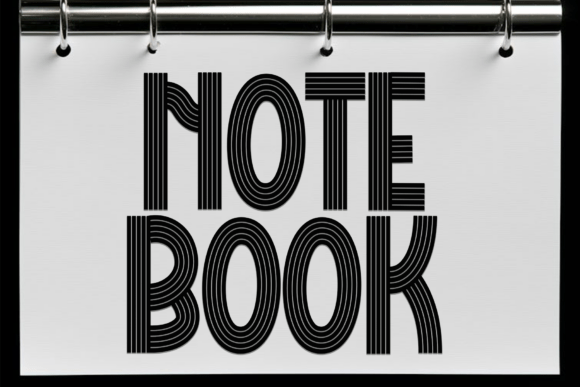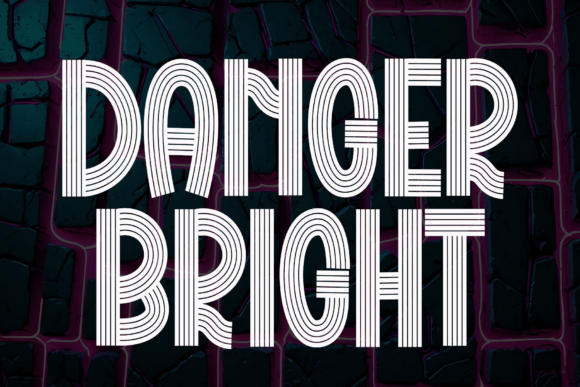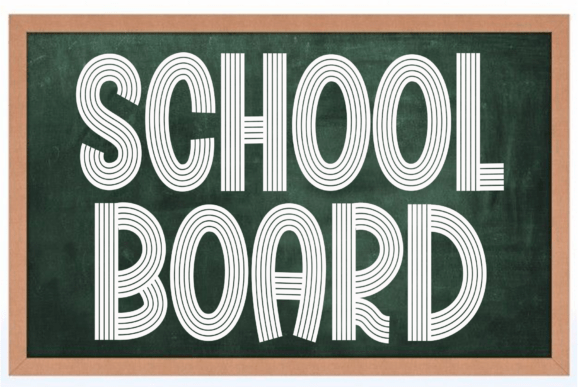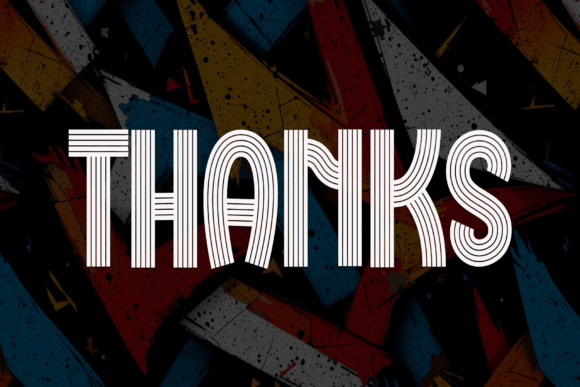
Fried Chicken Font: The Crispy Addition to Your Design Projects
Are you tired of using the same old fonts in your design projects? Do you want to add a dash of personality and whimsy to your creations? Look no further than the Fried Chicken Font! This cool and unique display font is sure to bring a smile to your audience’s faces and set your designs apart from the crowd.
The Inspiration Behind Fried Chicken Font
The Fried Chicken Font is a one-of-a-kind typeface that is inspired by the playful and casual vibe of fried chicken. Its creator, a talented designer, wanted to capture the essence of this beloved food and turn it into a font that would bring joy and creativity to designers and crafters. And that’s exactly what they’ve achieved!
What Makes Fried Chicken Font So Special?
So, what sets Fried Chicken Font apart from other fonts out there? Here are just a few of its unique features:
- Unique Character Set: Fried Chicken Font boasts a distinctive character set that is both fun and quirky. Each letter is carefully crafted to resemble the playful, hand-drawn style of fried chicken-inspired artwork.
- Display Font: This font is specifically designed as a display font, making it perfect for headlines, titles, and other attention-grabbing elements in your designs.
- Highly Readable: Despite its playful nature, Fried Chicken Font remains highly readable, even at smaller sizes. This makes it versatile enough to use in a variety of design projects.
How to Use Fried Chicken Font in Your Design Projects
Now that you’re excited about Fried Chicken Font, let’s talk about how to incorporate it into your design projects. Here are some ideas to get you started:
- Signs and Posters: Use Fried Chicken Font to create eye-catching signs and posters for restaurants, cafes, or food-related events.
- Branding and Packaging: Add a touch of whimsy to your brand’s packaging and marketing materials with this unique font.
- Social Media Graphics: Stand out on social media with Fried Chicken Font used in your graphics, headers, and titles.
- DIY Crafts: If you’re a crafter, you can use Fried Chicken Font to add a personal touch to your handmade projects, such as scrapbooking, card-making, or woodworking.
Tips for Pairing Fried Chicken Font with Other Fonts
To get the most out of Fried Chicken Font, it’s essential to pair it with complementary fonts. Here are some tips:
- Contrasting Fonts: Pair Fried Chicken Font with a clean, sans-serif font to create visual interest and contrast.
- Script Fonts: Combine Fried Chicken Font with a script font for a playful and elegant look.
- Experiment with Sizes: Play around with different font sizes to create a visually appealing hierarchy in your designs.
In conclusion, Fried Chicken Font is a cool and unique display font that can add a dash of personality to your design projects. Its playful and quirky style makes it perfect for designers and crafters looking to create eye-catching and engaging designs. So why not give it a try and see the crispy results for yourself?